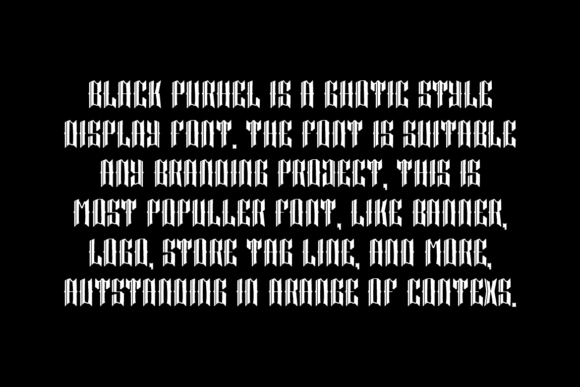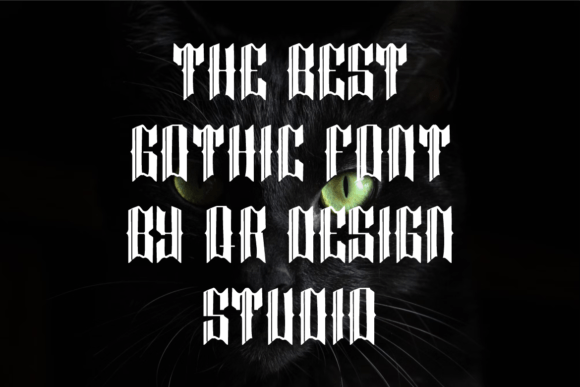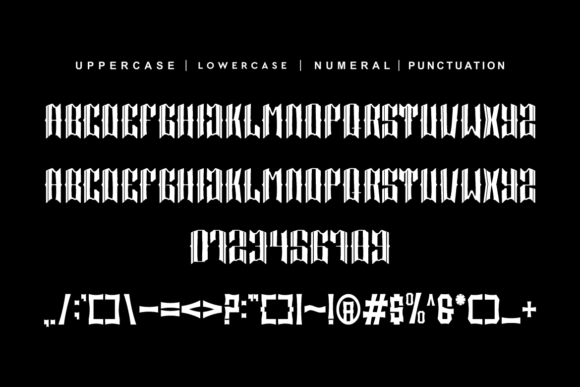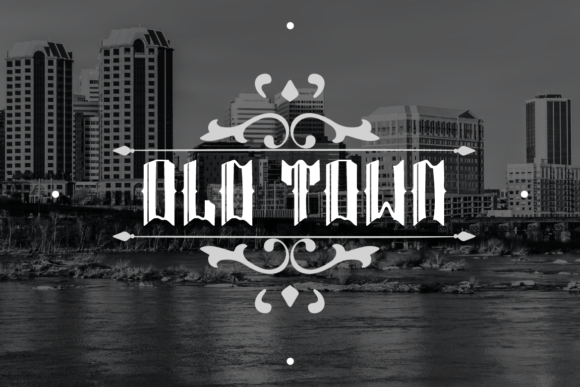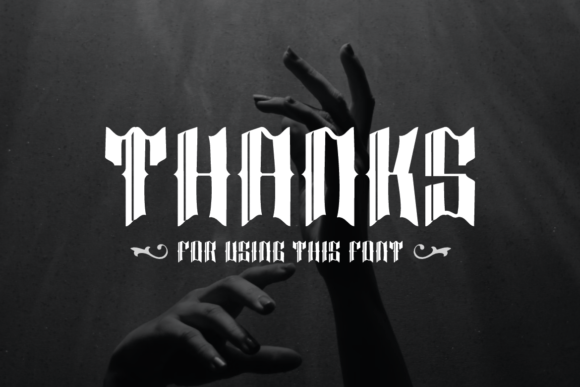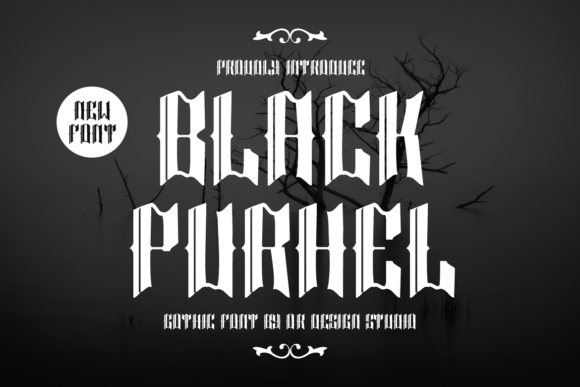
The Mysterious Allure of Black Purhel Font
I still remember the design project that led me to discover Black Purhel Font. I was working on a Gothic-inspired wedding invitation, and my client wanted a font that would evoke a sense of mystery and romance. After hours of scouring font libraries, I stumbled upon Black Purhel, and it was love at first sight! ✨ The intricate letterforms and ornate details instantly captured the essence of what I was trying to achieve. In this article, I’ll share my experience with Black Purhel, its features, and how to make the most of this stunning font.
An Honest Review of Black Purhel
• ✨ Elegant and mysterious vibe: Black Purhel exudes a sense of sophistication and dark romance, perfect for designs that require a touch of Gothic elegance.
• ✅ Intricate letterforms: The font’s ornate details and unique lettering style make it stand out from other display fonts.
• 💡 Versatile: Black Purhel can be used for various design projects, from invitations and posters to branding materials and packaging.
While Black Purhel is an exceptional font, there are a few things to keep in mind: ⚠️
• 🤔 Legibility at small sizes: Due to its intricate design, Black Purhel may not be suitable for body text or small font sizes. It’s best used for headlines or titles.
• ⚠️ Limited use of OpenType features: While Black Purhel supports some OpenType features, it may not have the full range of stylistic alternates or glyphs that some designers might expect.
A Practical Guide to Using Black Purhel
Black Purhel was inspired by the works of 19th-century Gothic Revival architects and the ornate lettering found in ancient tomes. The font’s creator aimed to capture the essence of mystery and elegance that defines this architectural style. By combining intricate details with a sense of dark romance, Black Purhel Font was born.
Q: What type of projects is Black Purhel suitable for?
A: Black Purhel is perfect for designs that require a touch of Gothic elegance, such as wedding invitations, posters, branding materials, and packaging.
Q: Can I use Black Purhel for body text?
A: While Black Purhel is an exceptional font, it’s best used for headlines or titles due to its intricate design. For body text, consider using a clearer, more legible font.
Q: Does Black Purhel support OpenType features?
A: Yes, Black Purhel supports some OpenType features, including stylistic alternates and glyphs. However, the range of features may be limited compared to other fonts.